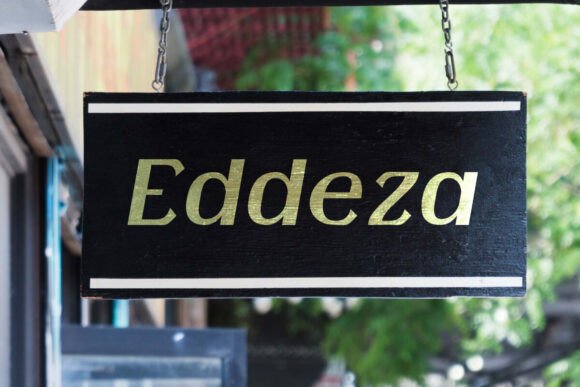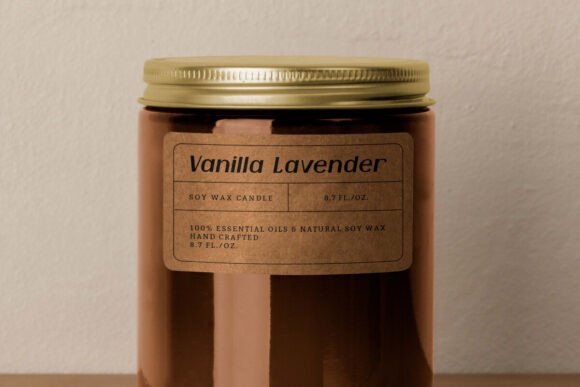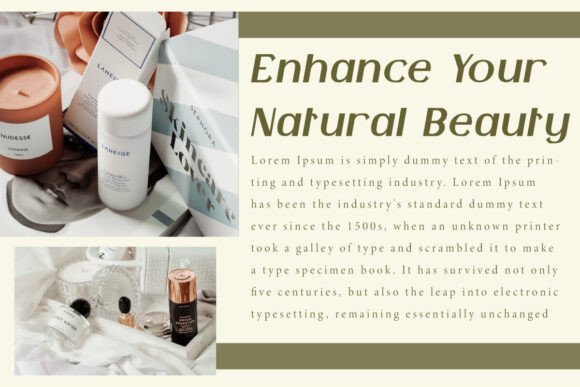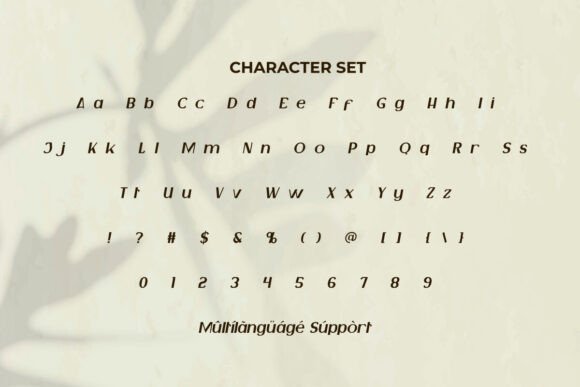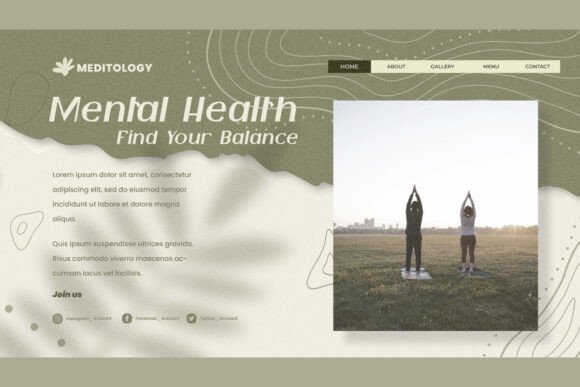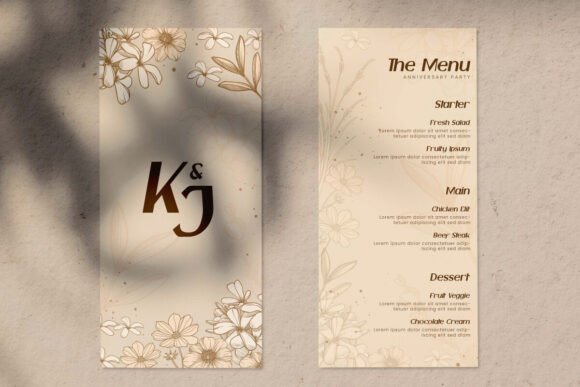
The Power of Typography: Discovering the Charm of Being Nice Font
I’ll never forget the time I was working on a branding project for a new coffee shop. My client wanted a font that was both elegant and approachable, but I was struggling to find the perfect fit. That’s when I stumbled upon Being Nice Font, an italic basic yet classy stylish display font that has since become a staple in my design toolkit. In this article, I’ll share my experience with Being Nice Font, its unique features, and how to make the most of it in your designs.
A Personal Review: What I Love (and What I Don’t)
- ✅ Unique and timeless charm: Being Nice Font has a distinct personality that sets it apart from other fonts.
- ✅ Versatility: This font is perfect for a wide range of design projects, from brand image and marketing materials to invitations and product packaging.
- ✅ Easy to read: Despite its elegant and cursive nature, Being Nice Font remains highly legible, even at smaller sizes.
- ✅ Highly customizable: With OpenType features and glyphs, you can experiment with different styles and variations to suit your design needs.
- ⚠️ Limited use in body text: While Being Nice Font is great for headings and titles, it may not be the best choice for longer blocks of text.
- ⚠️ May require adjustments for non-English languages: As with any font, you may need to make adjustments for languages that require non-English characters or diacritical marks.
The Story Behind Being Nice Font: Designer Inspiration
While the true story behind Being Nice Font may be unknown, it’s easy to imagine that its designer was inspired by the classic elegance of traditional typography. Perhaps they sought to create a font that was both timeless and modern, with a unique personality that would stand out in a crowded design landscape. Whatever the inspiration, Being Nice Font is a beautiful and versatile font that’s sure to delight designers and crafters alike.
| Font Name | Being Nice Font |
| Author | NoahType |
Q: What type of projects is Being Nice Font best suited for?
A: Being Nice Font is perfect for a wide range of design projects, including brand image, marketing materials, invitations, product packaging, and more.
Q: Can I use Being Nice Font for body text?
A: While Being Nice Font is elegant and easy to read, it may not be the best choice for longer blocks of text. Consider using a serif font for body text and reserving Being Nice Font for headings and titles.